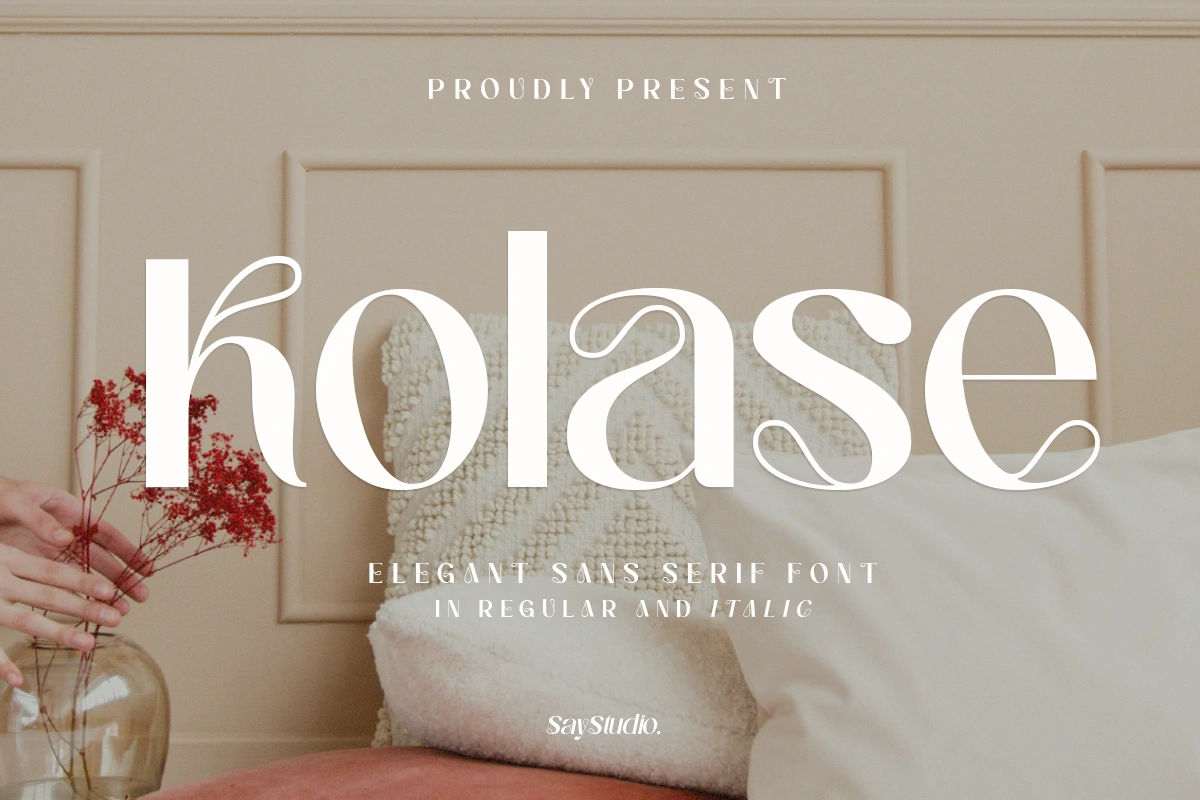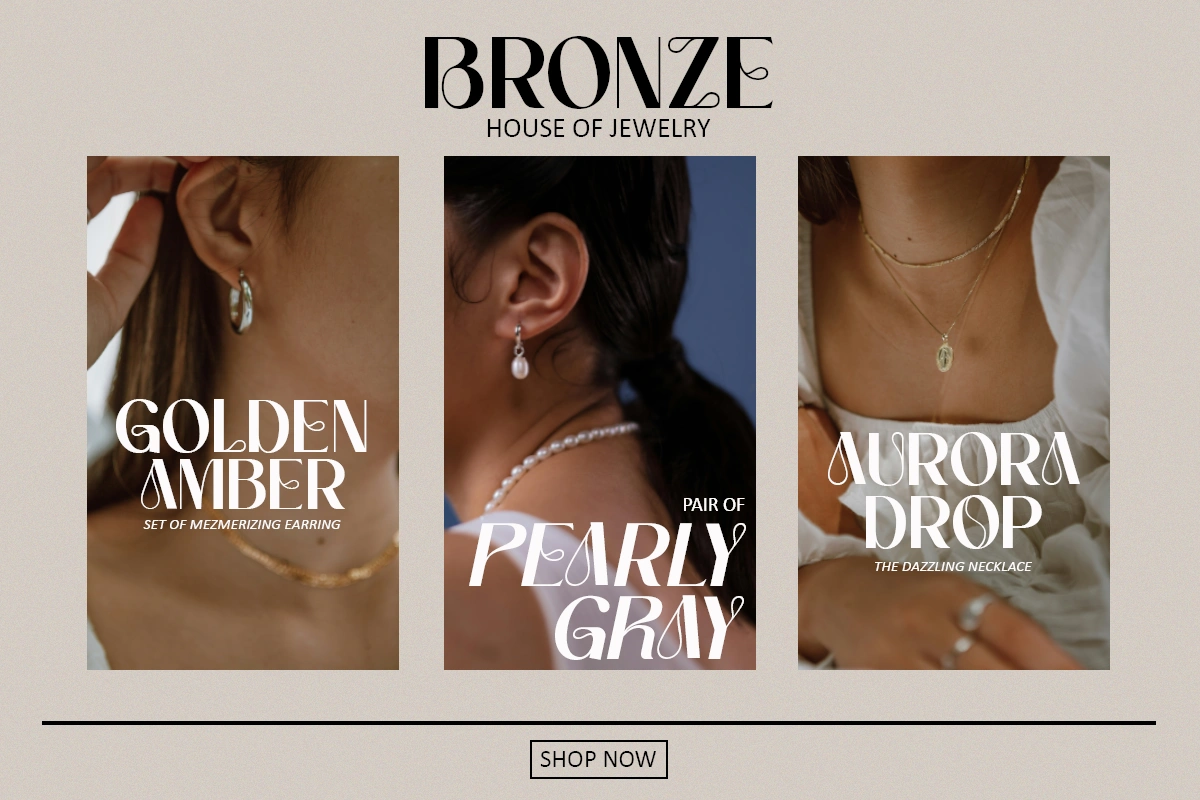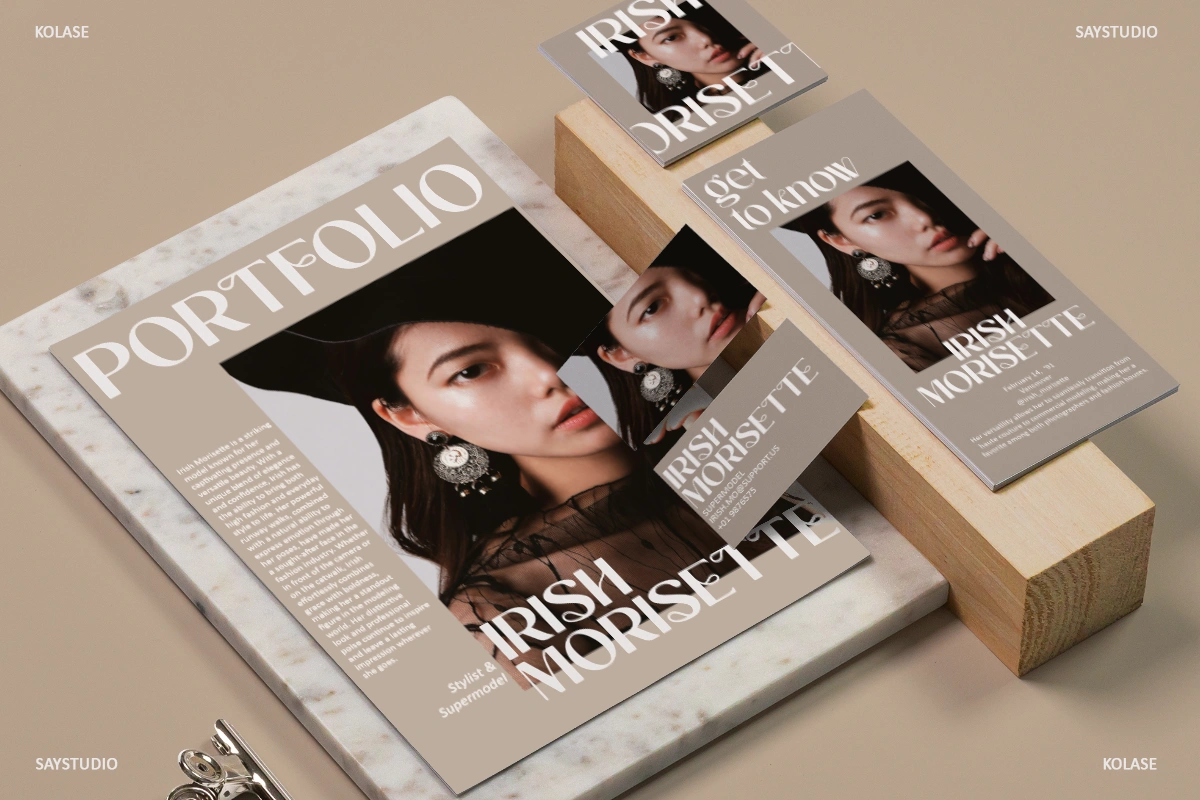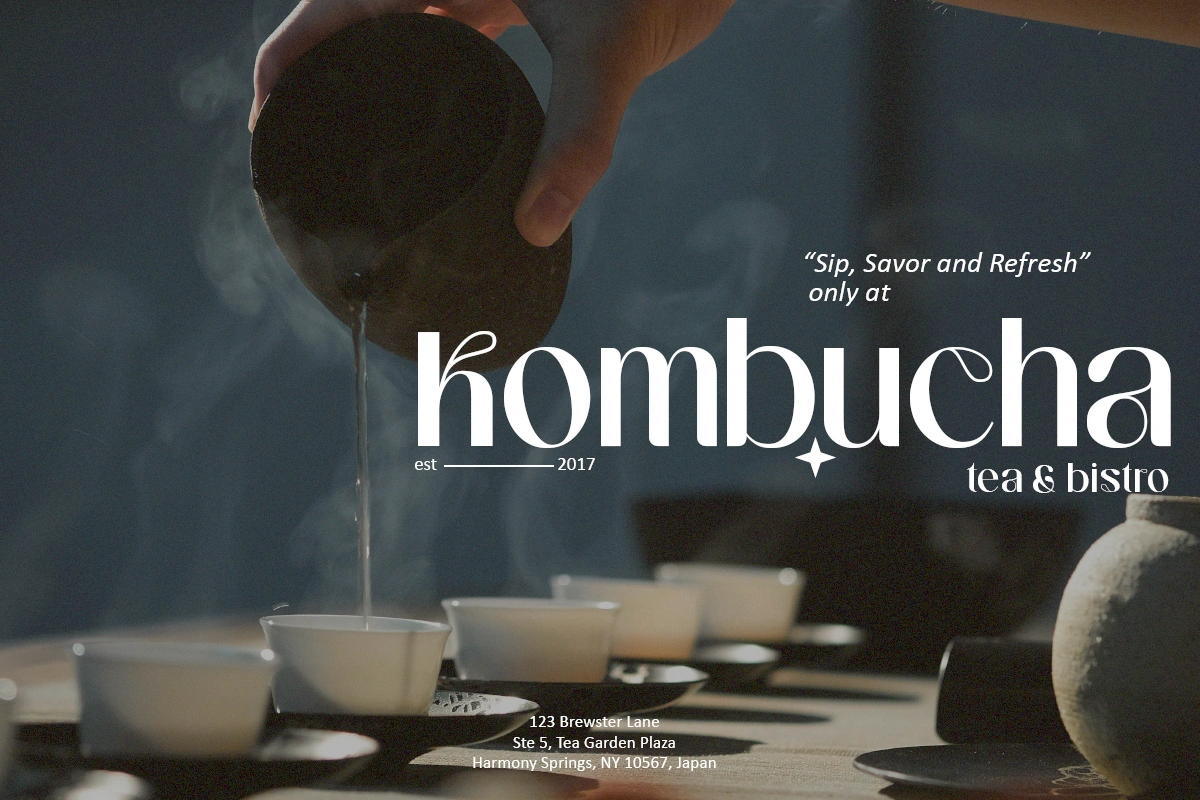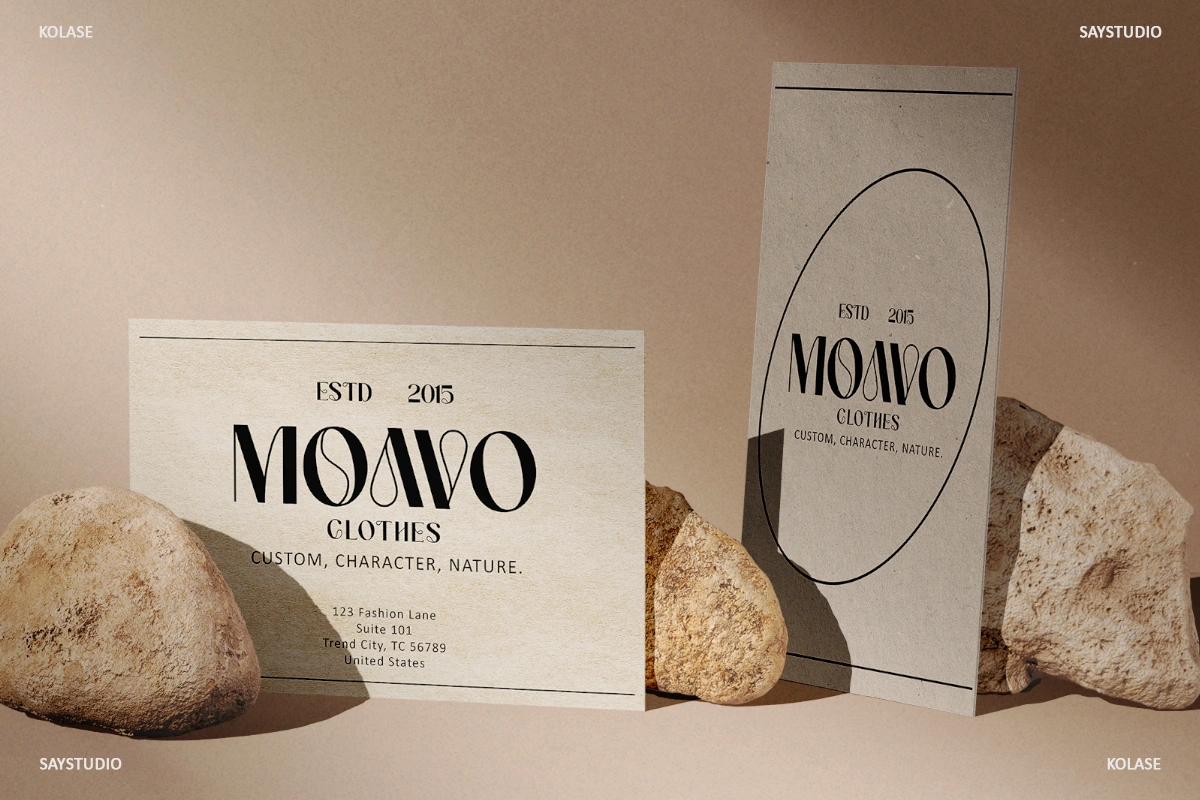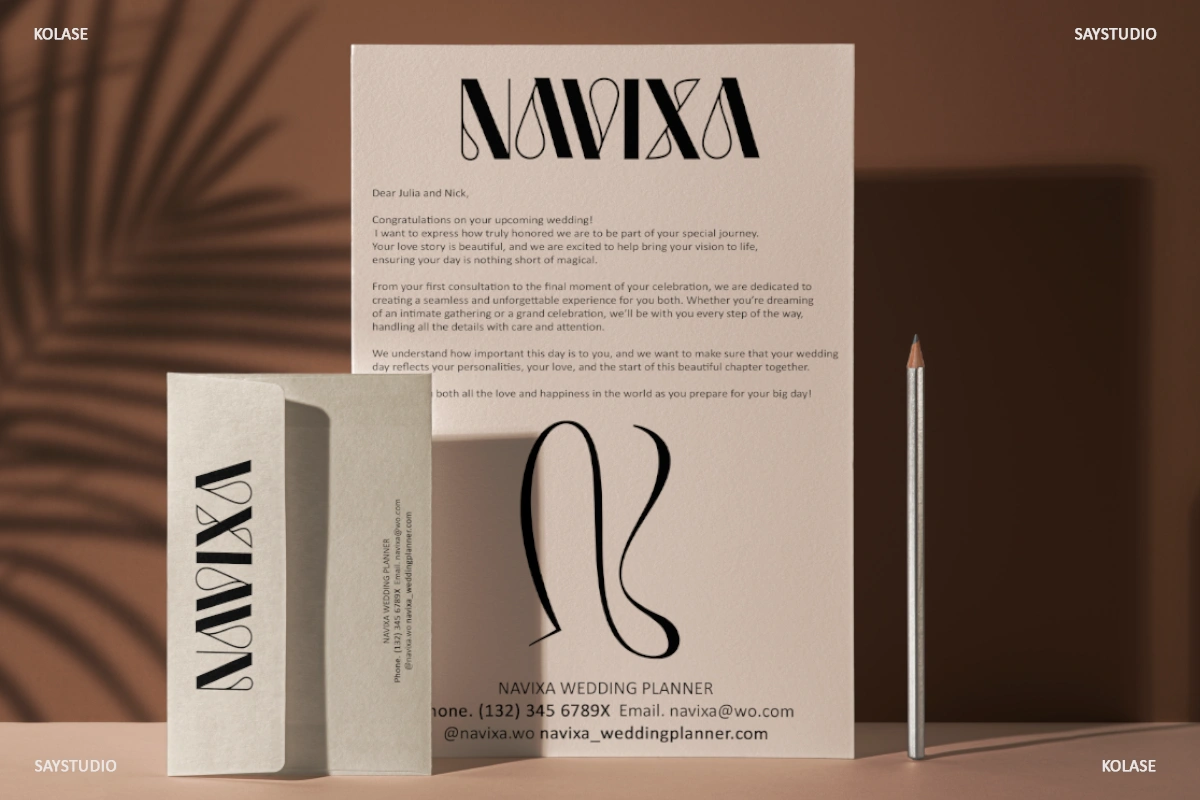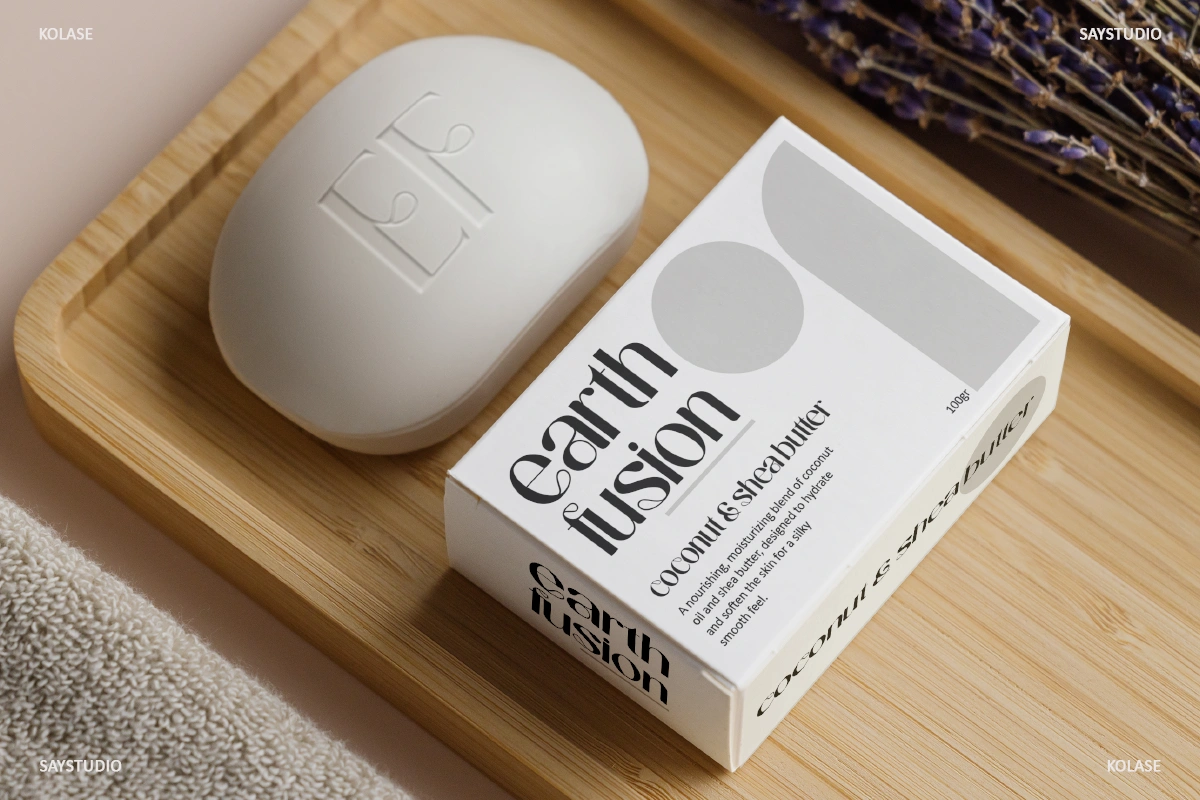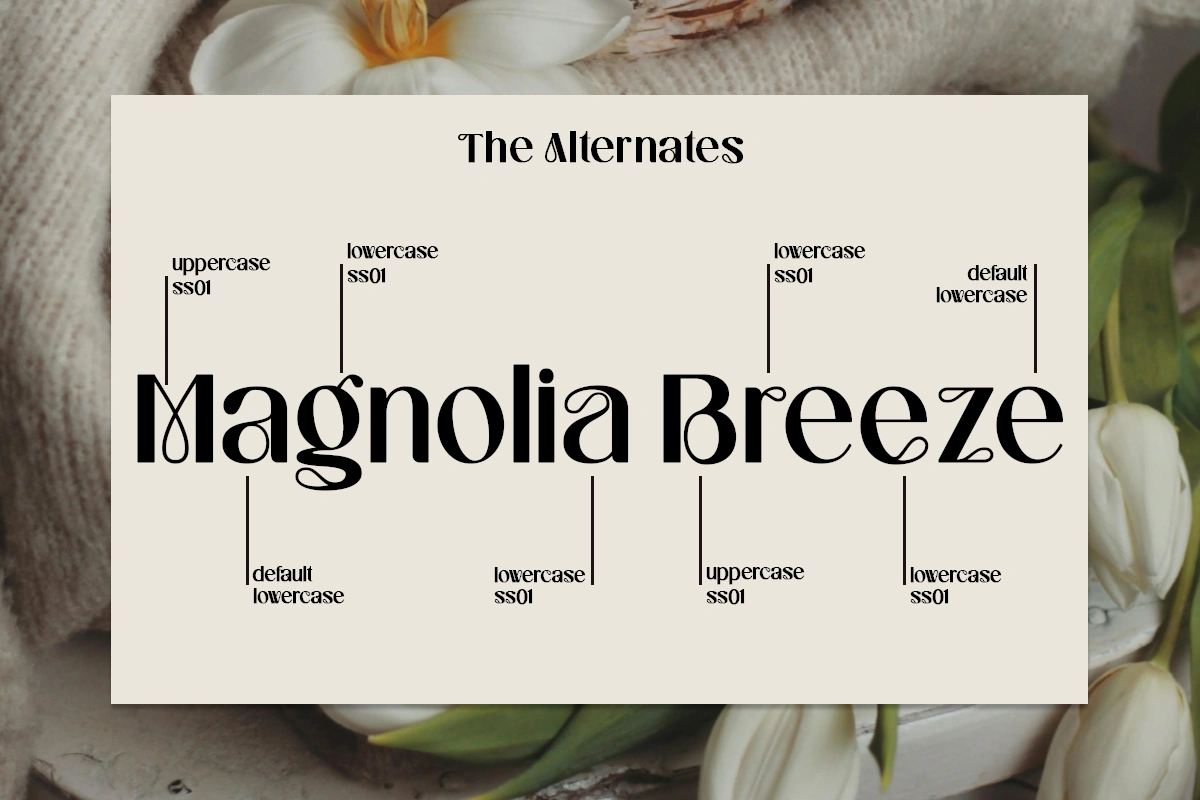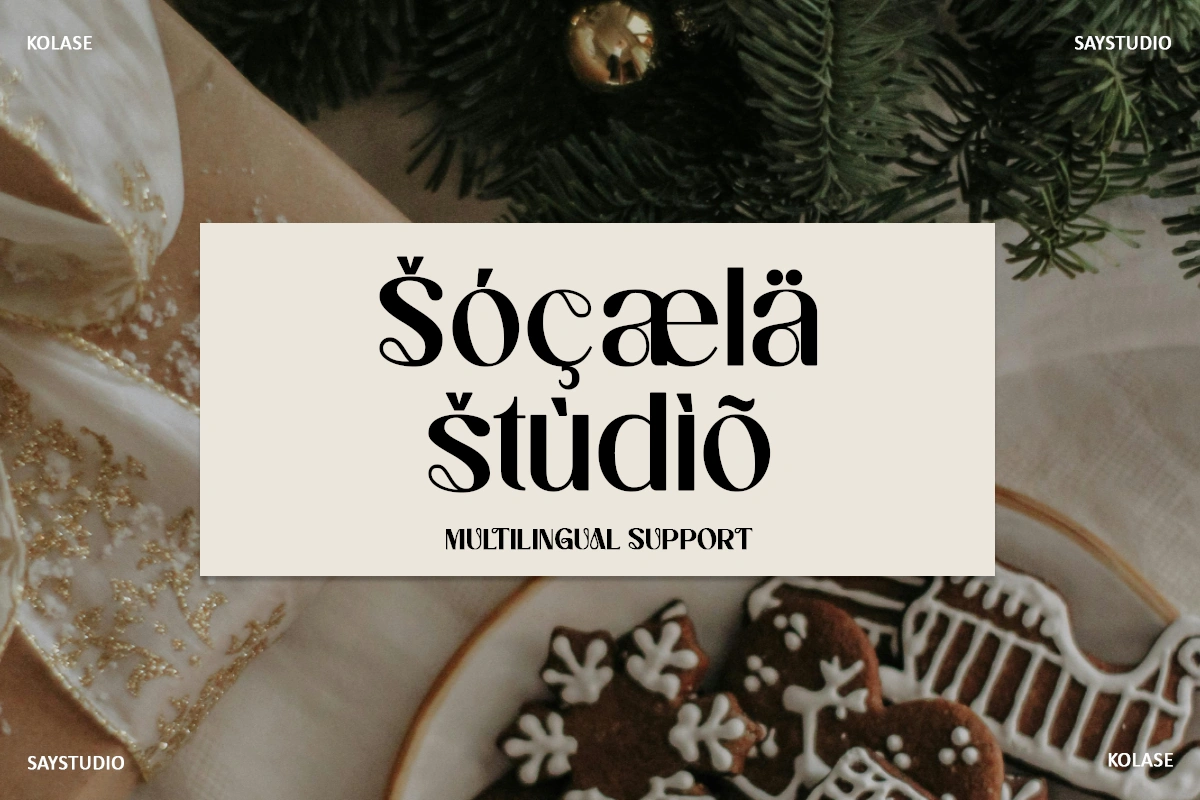
Kolase – Sans Serif Font
Kolase - Elegant Sans Font Introducing Kolase, a contemporary serif font that seamlessly blends graceful curves with flexibility. What sets Kolase apart from other sans serifs is its unique feature: a full set of alternate characters adorned with ornate swirls and flowing curves. The second ornate character set can be used as a standalone font, but can also be easily integrated into regular character sets. This gives you a host of word layout options and experimental possibilities—delivering stunning typography that works well in both uppercase and lowercase. It’s a clean & classy option for modern logo & brand designs, product packaging, attention-grabbing display text, website headers, invitations & more. INCLUDED Kolase Regular ( TTF, OTF, WOFF ) Kolase Italic ( TTF, OTF, WOFF ) Alternates Multilingual Notes Using Alternates Thanks, Have a wonderful Day Say Studio